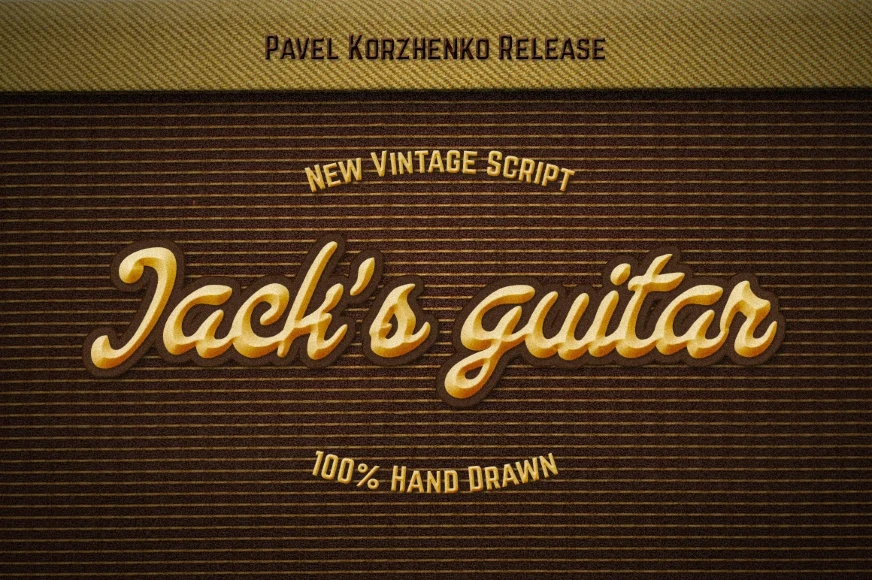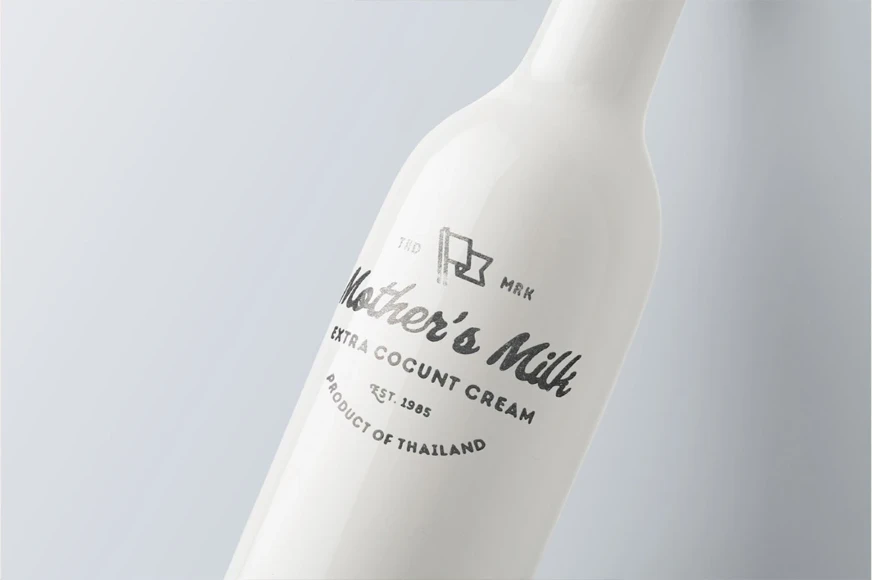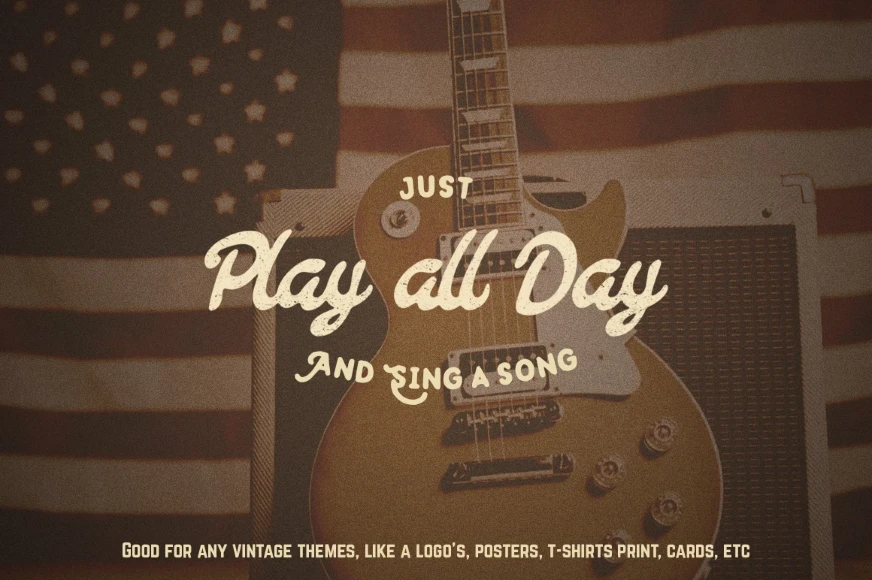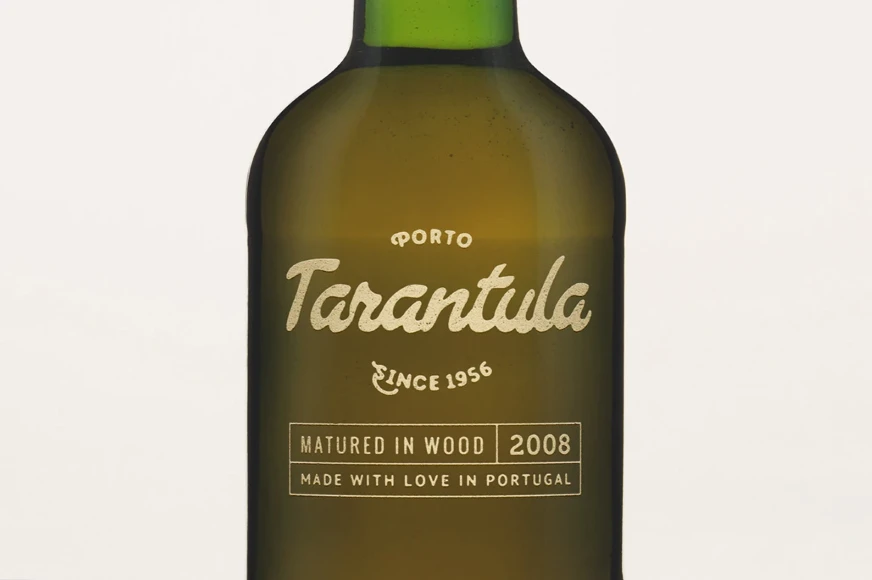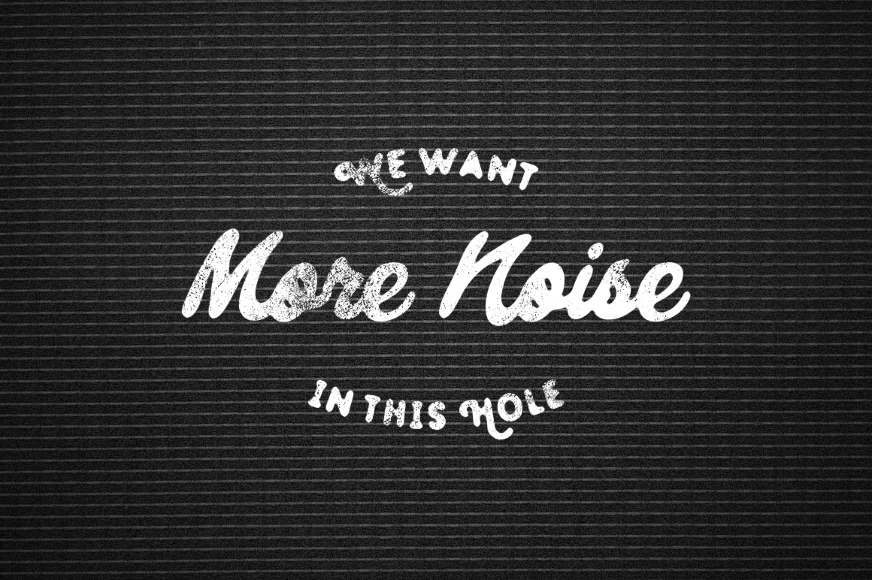
Jacks Guitar
Jacks Guitar Regular
Jacks Guitar is a hand-drawn font created with an ink calligraphy pen. Designed with a vintage spirit and a personal touch. Ideal for logos, t-shirts, business cards, posters, and other printed materials. Also works well in digital designs and web projects. Adds a warm, handcrafted feel to any creative layout. Made for designers looking to bring charm and character to their work.